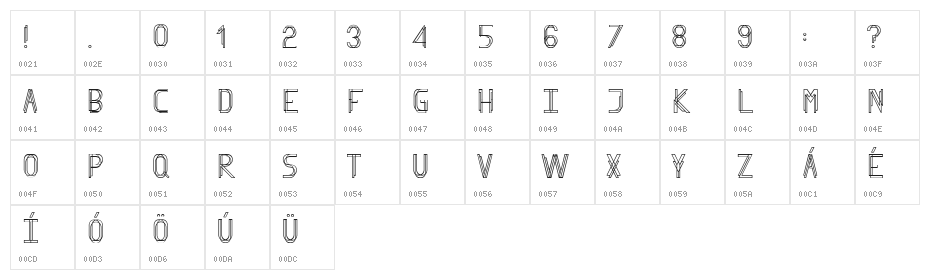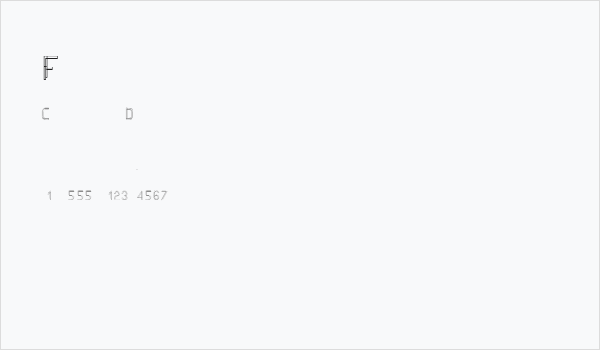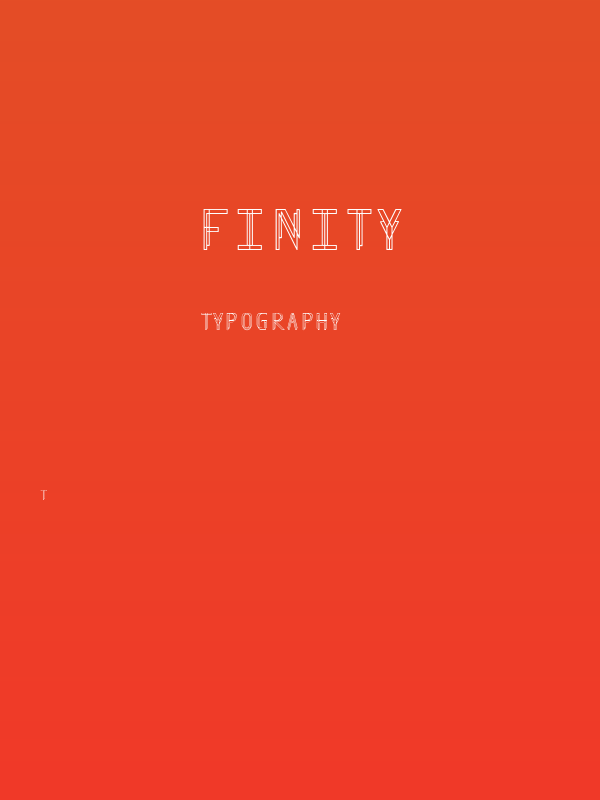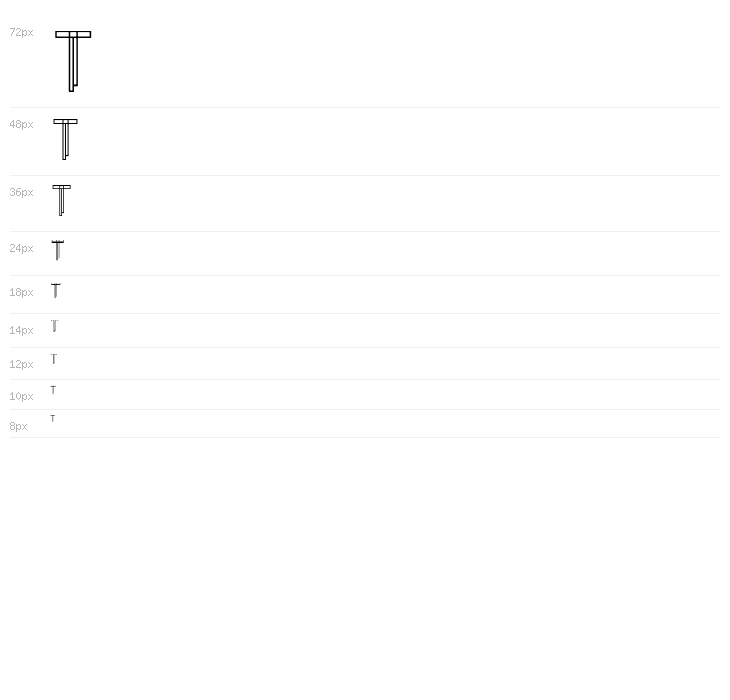
Finity Font
Finity Description
This font features a unique geometric design with overlapping lines that create a sense of depth and complexity. Each character is constructed with a series of parallel lines that intersect, giving it a three-dimensional appearance. The uppercase letters are bold and structured, while the numerals maintain the same intricate style, ensuring consistency throughout. The overall look is modern and futuristic, making it suitable for projects that aim to stand out with a distinctive visual identity. The font's design is both artistic and functional, offering a balance between creativity and readability.
| Use Case | Logos, Headlines, Posters |
| Proposed Projects | Ideal for branding, posters, album covers, and any project seeking a modern, artistic flair. |